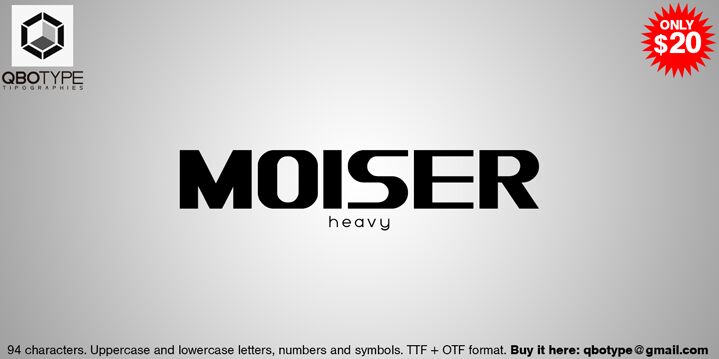
Moiser Heavy, designed in 2013 by Carlos Matteoli, also known as Qbotype, is a free heavy sans serif with assertive, tightly fitted capitals. Broad verticals meet sharp triangular cuts, and rounded letters carry abrupt, compact curves rather than soft transitions. The extreme weight gives the alphabet a dense, poster-like silhouette.
Contemporary culture and urban nightlife are its clearest territory, especially on concert posters and event graphics. Fashion branding and streetwear merchandise can use its blunt geometry for an oversized, confident voice. In magazine publishing, it is best suited to forceful cover lines or section openers that make type part of the page's imagery.